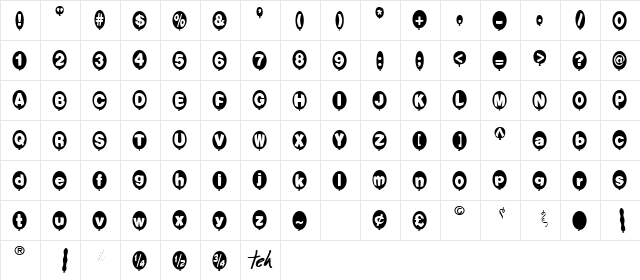
Complete fts9 Normal glyph index. Displaying only characters natively supported by fts9 Normal font.
fts9 is a composed and adaptable typeface that performs quietly and consistently across a wide range of design contexts.